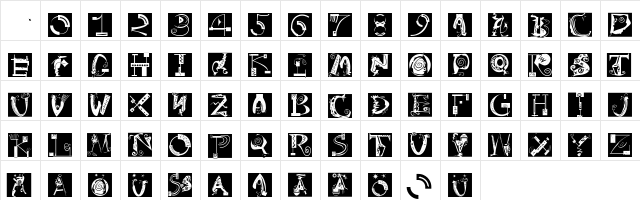
Artistiques-Bricks Regular Font Preview
Artistiques-Bricks Regular
Design Context for Artistiques-Bricks Typeface
Artistiques-Bricks is a composed and adaptable typeface that performs quietly and consistently across a wide range of design contexts.